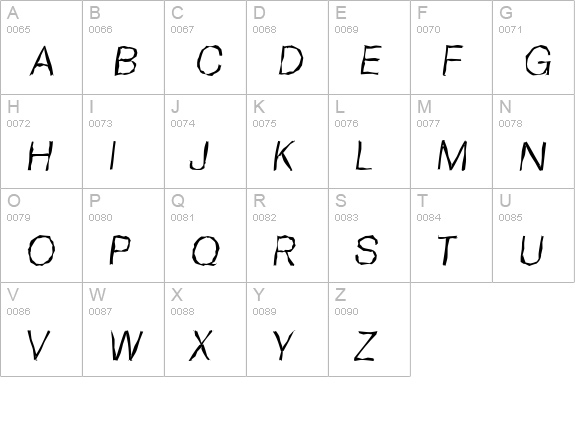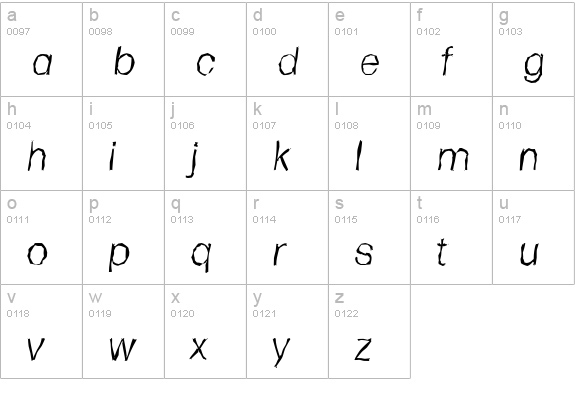
FormulaRandom-Light-Italic Font Details
FormulaRandom-Light-Italic is a refined, elegant, italic variant in the FormulaRandom typeface family \xE2\x80\x94 well suited to elegant body text, refined sub-headings, and luxury branding.
Introducing FormulaRandom-Light-Italic font - a sleek and elegant typeface that effortlessly blends modern aesthetics with a touch of sophistication. Its light and italic design exudes a sense of grace and refinement, making it perfect for a variety of design projects. This versatile font is not only visually appealing but also highly readable, making it suitable for both print and digital applications. Whether you're working on a branding project, editorial design, or web layout, FormulaRandom-Light-Italic font will surely add a sophisticated touch to your work. The best part? This stunning font is available for free download at FontsMarket.com, allowing you to elevate your designs without breaking the bank. Don't miss out on the opportunity to enhance your projects with the timeless charm of FormulaRandom-Light-Italic font. Download it today and see the difference it can make!